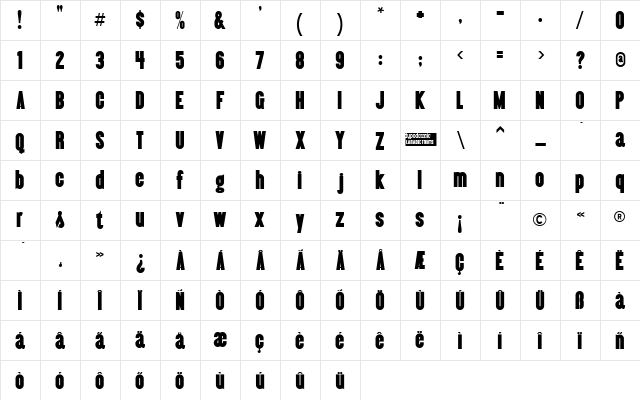
Almonte Regular
Almonte Family
Complete Almonte Regular glyph index. Displaying only characters natively supported by Almonte Regular font.
Design Context for Almonte
Almonte is a composed and adaptable typeface that performs quietly and consistently across a wide range of design contexts.